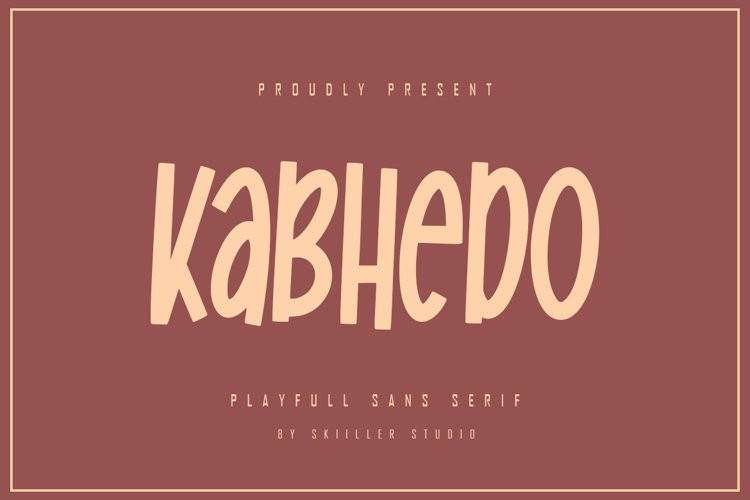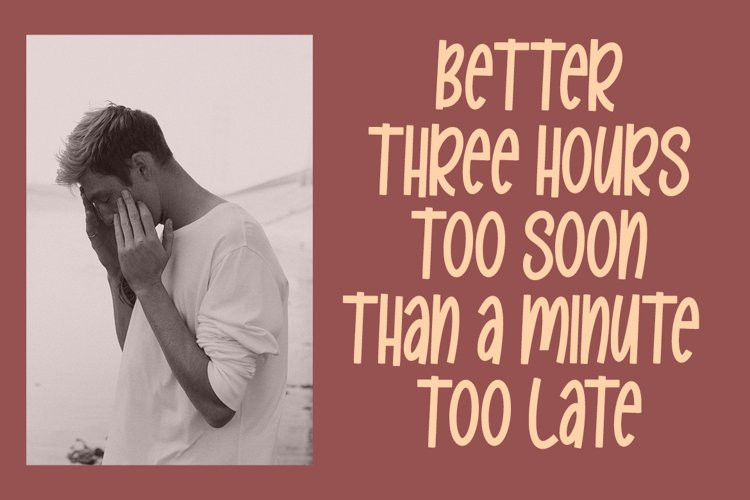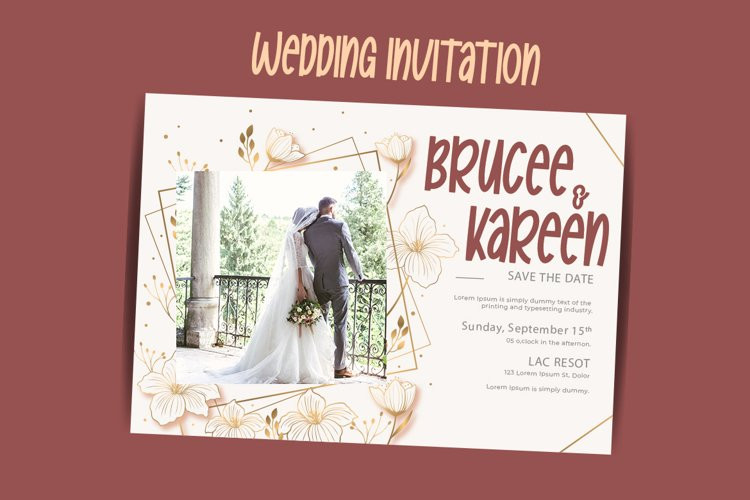
Kabhedo Font
Kabhedo FontKabhedo Modern sans serif font. It has a elegant, classy look and modern. It’s a great font for fashion, signature, logo, magazine, social media.